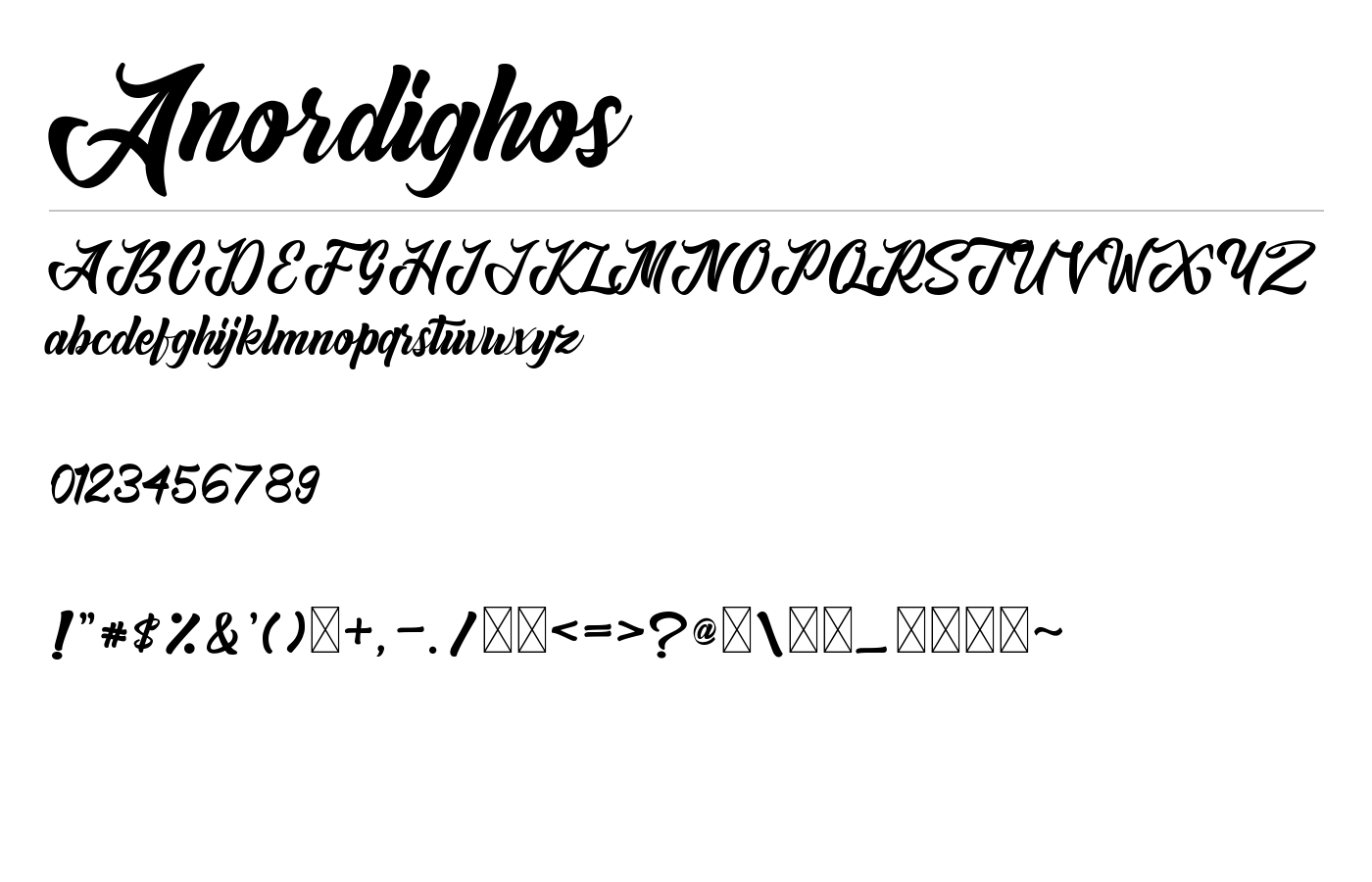
Anordighos is a bold, script-style font featuring elegant, flowing letterforms with a high contrast between thick and thin strokes. Its classic calligraphic curves and dynamic, connected characters give it a refined yet lively personality, making it ideal for branding, invitations, and decorative uses where sophistication and warmth are desired. This font shines in headlines and logos where a stylish, handcrafted feel is important.
Anordighos Font